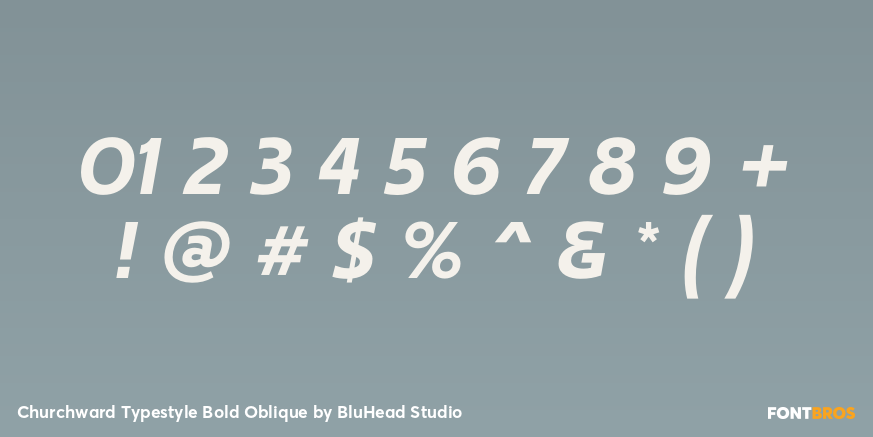
Churchward Typestyle Bold Oblique
Font Style by BluHead Studio
Churchward Typestyle Bold Oblique, designed by Joseph Churchward, is a clean and open sanserif design, with a few of those characteristic Churchward goodies. Joseph loved his ink traps, so look for many of those! The font supports the major Western European languages, and has OpenType features for ligatures, smallcaps, tabular figures, superiors, inferiors, fractions, and ordinals.